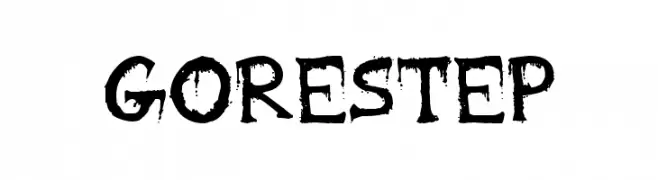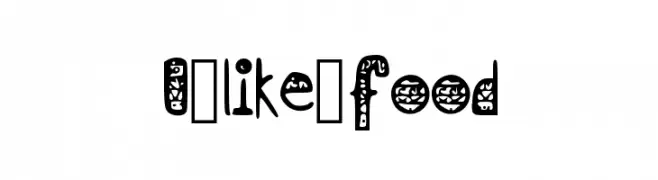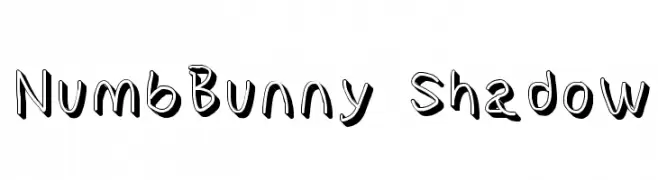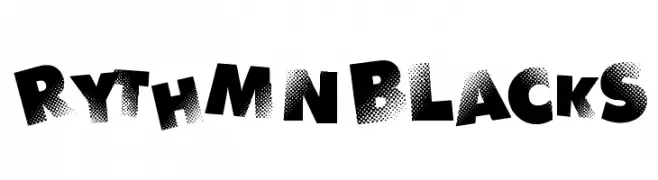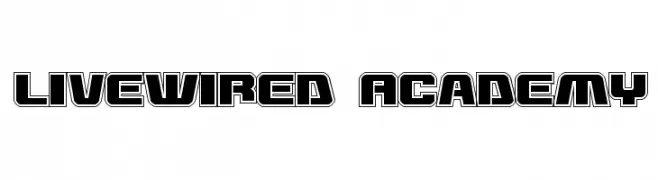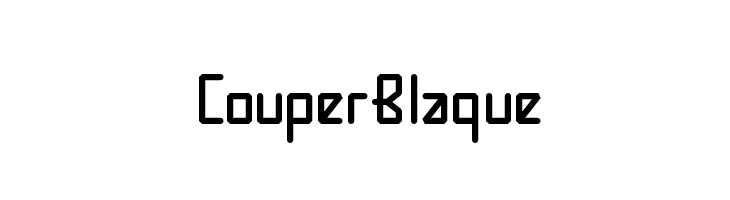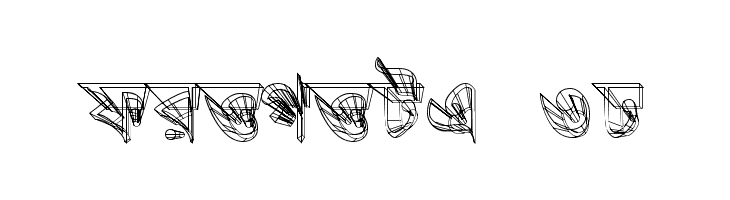
( I Like Fonts - Alan Alan )
A bold, grungy font with a distressed, hand-drawn appearance.
( Fonts by Cannot Into Space Fonts )
A playful, hand-drawn font with a bold shadow effect for a 3D look.
A modern, elegant script font with flowing cursive letters and dramatic flourishes.
A bold, playful font with a halftone pattern and a retro comic book feel.
A classic, elegant font with a slight slant and moderate contrast, perfect for sophisticated designs.
A bold, playful font with a hand-drawn, sketch-like style.
A geometric, modern font with angular lines and a futuristic style.
A bold, geometric font with a three-dimensional outlined effect.
A bold, geometric font with strong lines and a modern aesthetic.